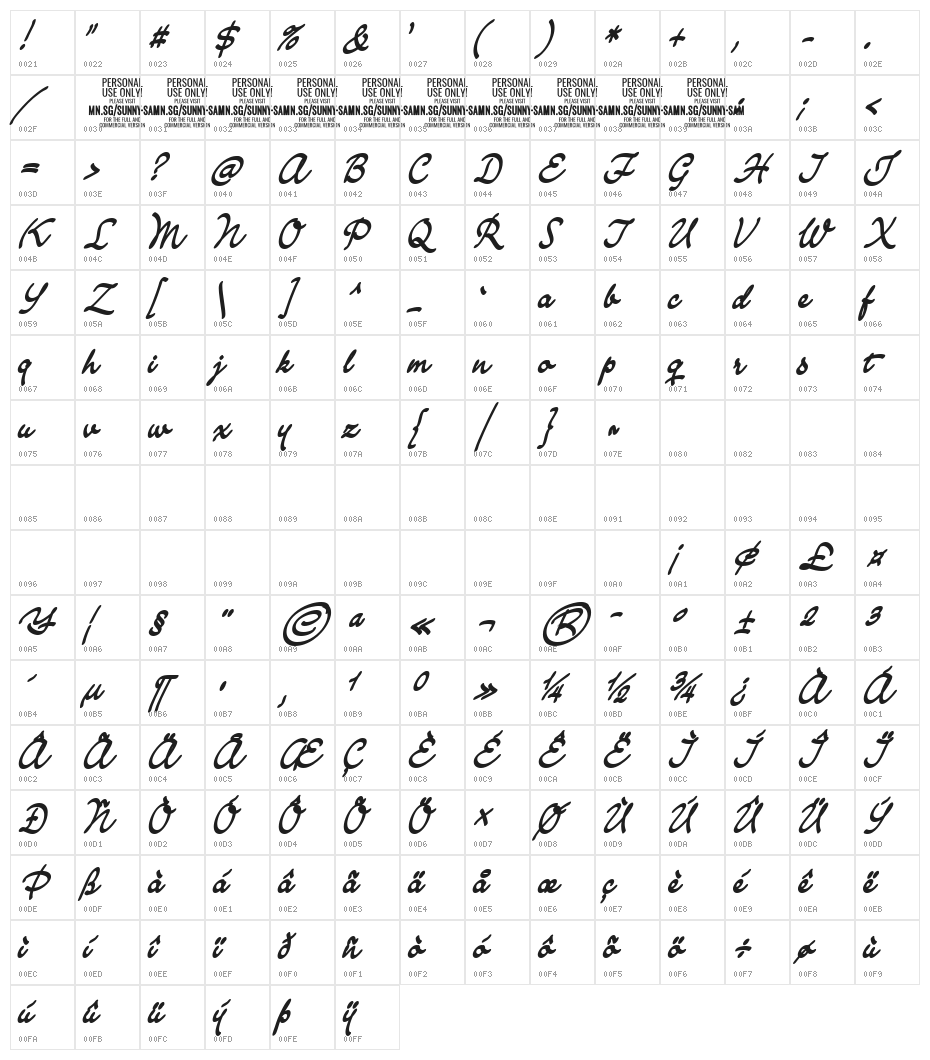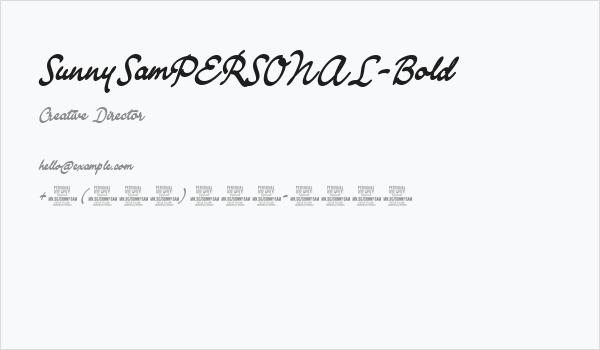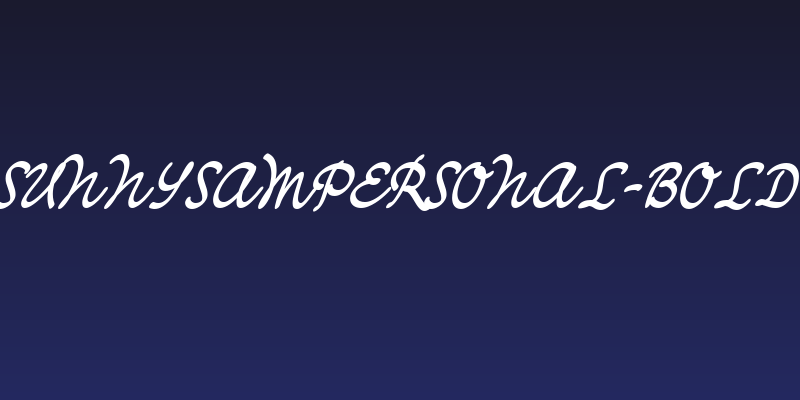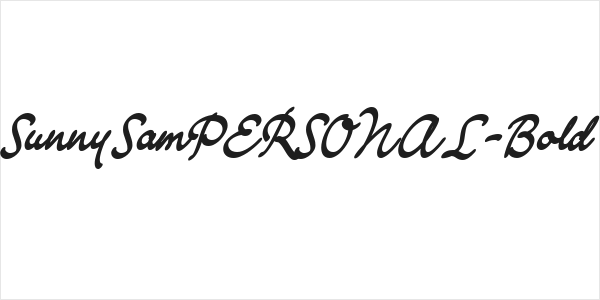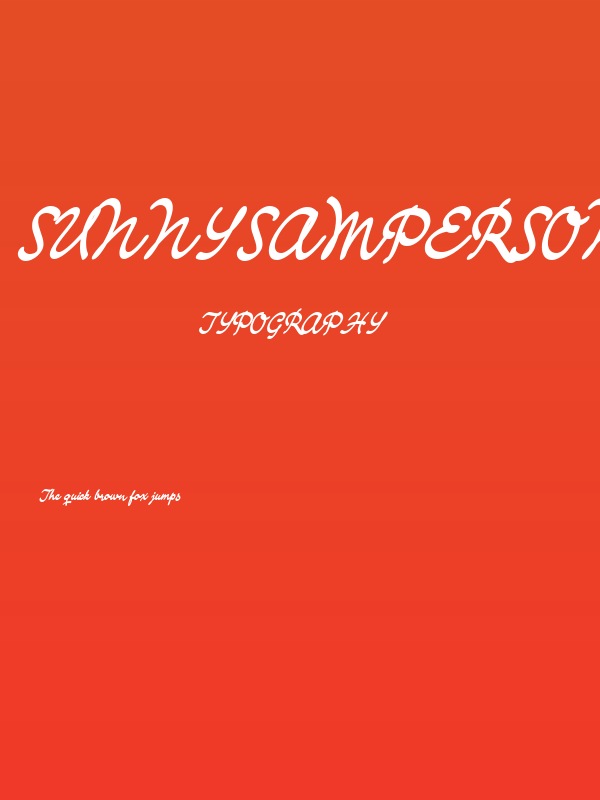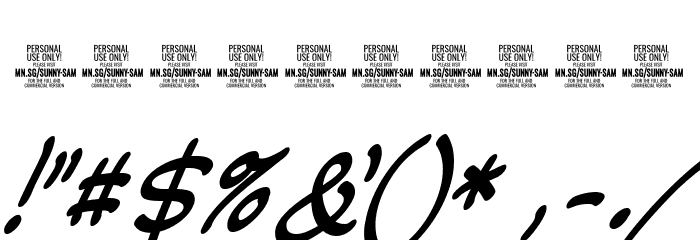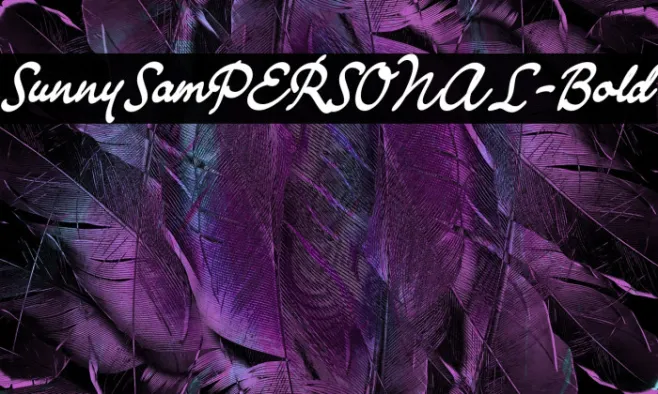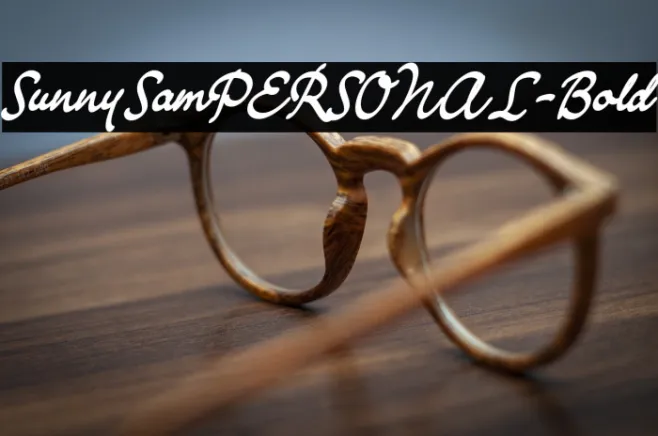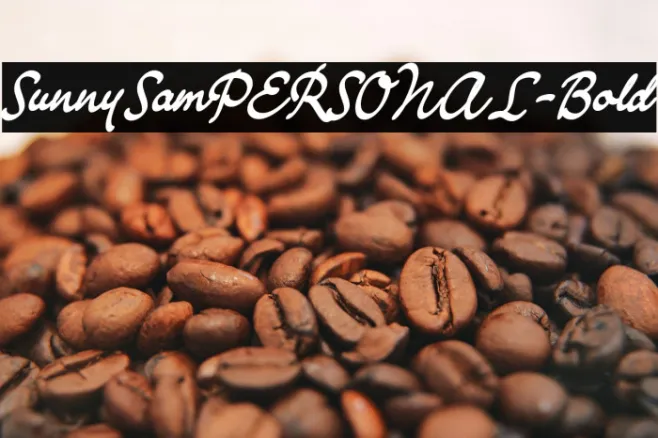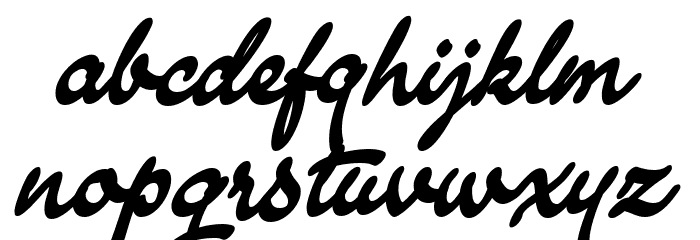
SunnySamPERSONAL-Bold Font
SunnySamPERSONAL-Bold Description
This font features a bold, cursive style with a smooth, flowing appearance. The uppercase letters are elegantly connected, while the lowercase letters maintain a consistent, fluid motion. The strokes are thick and rounded, providing a sense of warmth and approachability. The special characters are integrated seamlessly, maintaining the same bold and flowing characteristics. Overall, this font exudes a personal and handwritten feel, making it suitable for projects that require a touch of personality and charm.
| Overall Style | Handwritten |
| Proposed Projects | Ideal for personal branding, invitations, greeting cards, and creative projects that require a personal touch. |